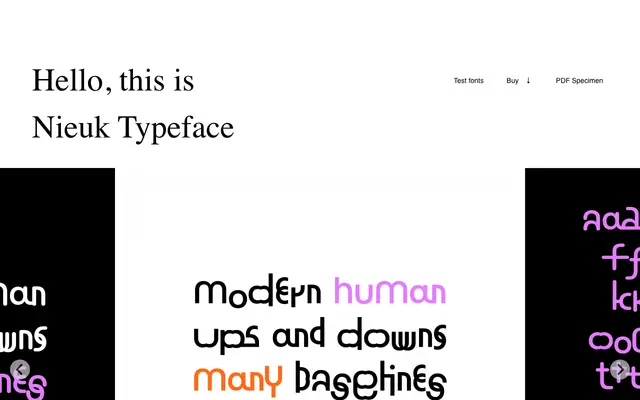
Nieuk
A modular display typeface by Maciej Połczyński that cycles through three alternating character sets as you type, producing a varied, self-interrupting rhythm.
Built from three distinct sets of uppercase characters that interchange automatically via the Contextual Alternates OpenType feature, Nieuk produces a restless, pattern-like texture across any string of text. The name is a Polish word for someone who plays rather than studies, which reflects the typeface's improvisational logic. Full Polish diacritic support is included, covering characters such as ą, ć, ę, ł, ń, ó, ś, ż and ź.
Nieuk is built from a modular system of three alternating character sets activated via Contextual Alternates, placing it firmly in the experimental display category rather than any conventional text classification.